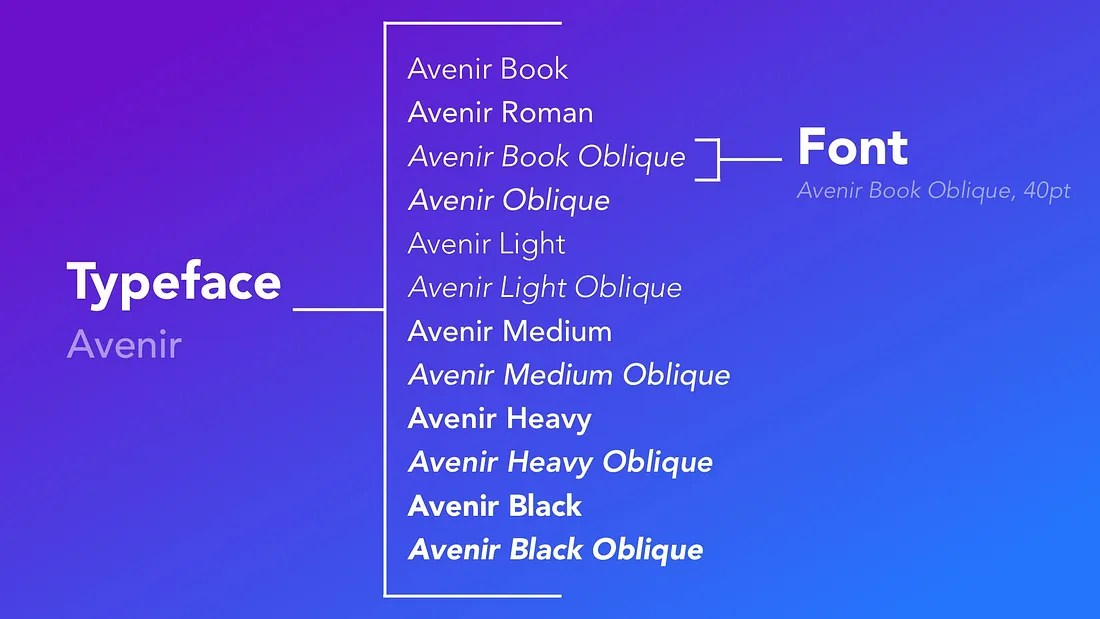
Revealing the Typeface vs Font Difference and Why It Matters
Most people use “typeface” and “font” interchangeably, but did you know they’re not the same thing? In contemporary design, knowing the difference of a typeface vs font can enhance your work and improve the clarity of your communication.
Moreover, as digital tools have replaced traditional typesetting, the boundaries have blurred, yet the distinction remains essential. If you’re still unsure how to use the two terms correctly, read on to gain some clear insights!
Key Takeaways
• Typeface defines design style; font defines technical variation.
• Knowing typeface vs font improves brand identity and consistency.
The 8 Main Differences Between Typeface and Font
Now it’s time to examine the fundamental differences between a typeface and a font, along with their proper usage. Follow through!
1. Definition
The first and most basic distinction lies in their definition. Here’s the explanation!
• Typeface: A typeface refers to the overall design or family of letterforms that share the same visual features. It’s the creative concept or style, like Helvetica, Garamond, or Times New Roman. According to Mockflow, it defines the consistent appearance of characters across a range of fonts.
• Font: Meanwhile, a font is a specific variation within that typeface. For example, Helvetica Bold 12pt and Helvetica Light 14pt are different fonts. In other words, a font brings a typeface to life by giving it a specific weight, style, and size.
2. Scope
The second difference of a font vs typeface lies in how broad or narrow each term is in scope, as explained below.
• Typeface: A typeface covers the entire family such as possible styles, weights, and variations of a design. It acts as an umbrella that includes many fonts within it.
• Font: In different ways, a font has a narrower scope that represents one specific instance of that design. So, if a typeface is a whole tree, each font is like one branch that carries a distinct look or function.
3. Usage Context
The context where typeface vs font is used also separates them significantly.
• Typeface: Designers usually talk about typefaces when discussing creative direction or brand identity. They might say, “Let’s choose a modern sans-serif typeface for this campaign.”
• Font: On the other hand, fonts are mentioned more in technical or production settings, such as printing, publishing, or coding. You might select a font file like Roboto-Regular.ttf or Georgia-Italic.otf while setting up your design.
4. Visual Variation
The next distinction comes from how much visual flexibility each provides.
• Typeface: A typeface ensures a consistent personality across all its variations. For instance, all versions of Garamond feel elegant and classic.
• Font: In contrast, a font introduces visual variation within that consistent design. Bold, light, italic, and condensed are all fonts that give unique looks while keeping the same typeface style.
5. File Example
The difference of file examples of a typeface vs a font becomes especially clear in this massive digital era. Here’s what you need to know!
• Typeface: A typeface is conceptual, so you can’t actually install it as a single file. It exists as a creative design idea.
• Font: It’s different for fonts, as they are the actual digital files that you can install and use on your computer or design software, such as Roboto-Bold.ttf or TimesNewRoman-Italic.otf. So when you install “Roboto,” you’re really installing several fonts that belong to one typeface family.
6. Creator’s Focus
Even the people who create typefaces and fonts have different focuses.
• Typeface: Typeface designers are artists who focus on visual form and style. They create the letter shapes, spacing, and overall aesthetic of the design.
• Font: Meanwhile, font developers are more like technicians or engineers. They ensure each variation works properly on screen and in print by handling coding, kerning, and hinting details.
7. Software Representation
If you open design tools like Adobe Illustrator or Figma, you’ll notice how the software separates fonts vs typefaces perfectly.
• Typeface: In software menus, the typeface usually shows up as a selectable font name, such as “Poppins” or “Georgia.”
• Font: Conversely, each variation under that family, such as Regular, Medium, Bold, or Black, is a font. This helps you maintain consistency and offer flexibility within your design system.